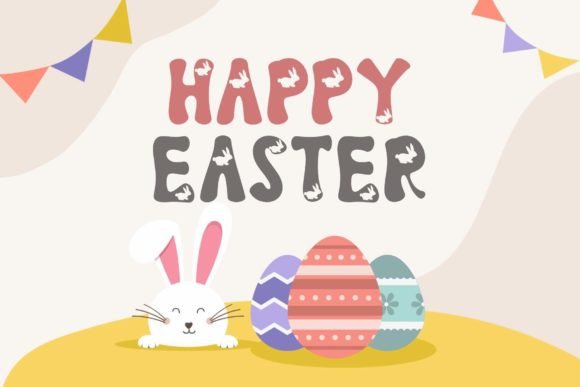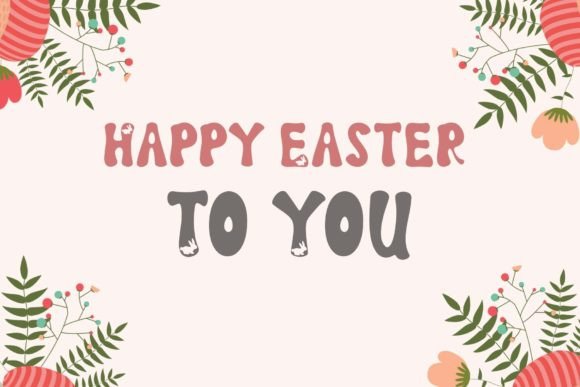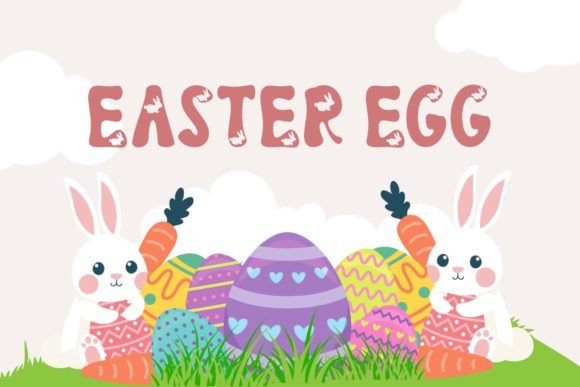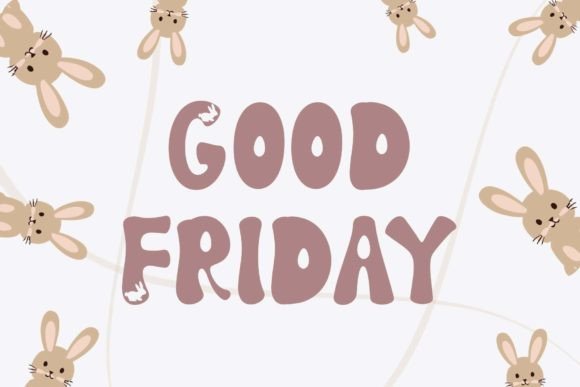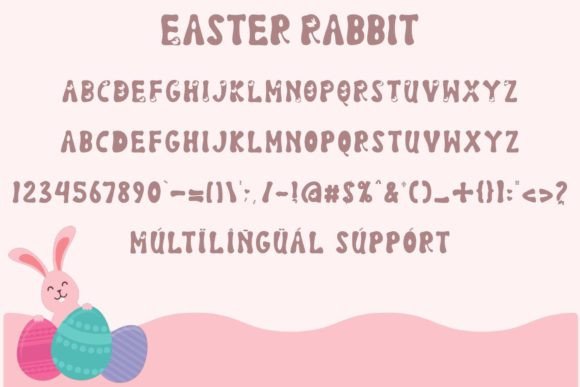
The Joy of Easter Rabbits Font: A Designer’s Delight
I’ll never forget the time I was working on a children’s book project, and I just couldn’t find the right font to bring the story to life. The client wanted something playful, yet elegant, and I was determined to deliver. That’s when I stumbled upon Easter Rabbits Font, and it was love at first sight! 💕
This adorable display font has been a game-changer for my designs, and I’m excited to share its charm with you. With its soft curves and playful style, Easter Rabbits Font is sure to make your words smile!
- ✅ Soft and rounded curves that add a touch of whimsy to any project
- ✅ Playful style that’s perfect for children’s books, greeting cards, and social media graphics
- ✅ Works beautifully with both uppercase and lowercase letters
- ⚠️ Limited character set, which may not be suitable for projects requiring a wide range of special characters
- ⚠️ May not be the best choice for body text or long-form content, as it’s designed for display purposes
- Experiment with OpenType features, such as ligatures and stylistic alternates, to add visual interest
- Explore the font’s glyphs and OpenType features, such as swashes and ornaments, to add a creative touch
- Use the font’s built-in stylistic alternates to add visual interest to your text
The Story Behind Easter Rabbits Font
Easter Rabbits Font was designed with one goal in mind: to spread joy and whimsy through typography. The designer, inspired by the playful and imaginative world of childhood, created a font that’s both cute and elegant. With its soft curves and playful style, Easter Rabbits Font is the perfect choice for projects that need a touch of fun and personality.
Q: What is Easter Rabbits Font best used for?
A: Easter Rabbits Font is perfect for children’s books, greeting cards, social media graphics, and any project that needs a playful, whimsical touch.
Q: Is Easter Rabbits Font available in different languages?
A: Easter Rabbits Font may not support all languages, but it does include a range of characters and glyphs to help with multilingual projects.
Q: Can I use Easter Rabbits Font for body text?
A: While Easter Rabbits Font is highly legible, it’s designed for display purposes and may not be the best choice for body text or long-form content.